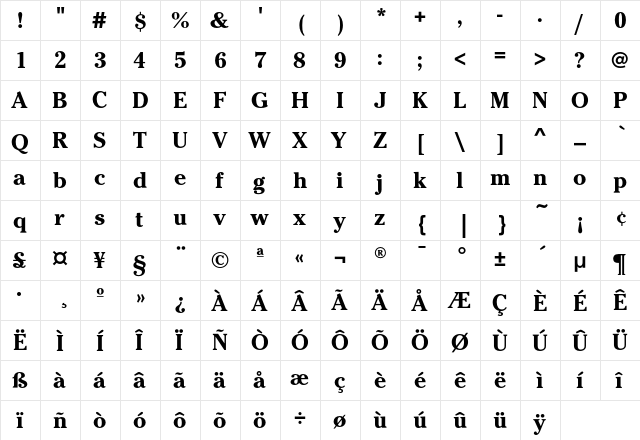
CheltenhamEF-Bold Regular Font Preview
CheltenhamEF-Bold Regular
CheltenhamEF-Bold Regular Font Details
Design Context for CheltenhamEF-Bold Typeface
CheltenhamEF-Bold takes a measured approach to typography — its balanced proportions and neutral character make it a reliable workhorse for both digital and print work. Its bold stroke weight gives it real presence on the page.